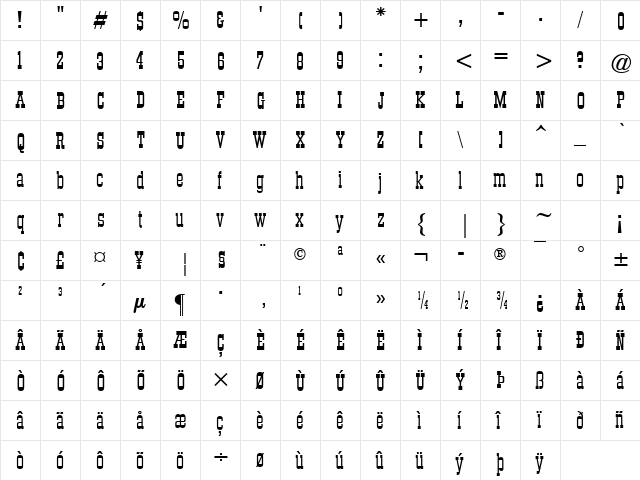
Branding Iron Regular
Design Context for Branding Iron Typeface
Branding Iron is a composed and adaptable typeface that performs quietly and consistently across a wide range of design contexts.